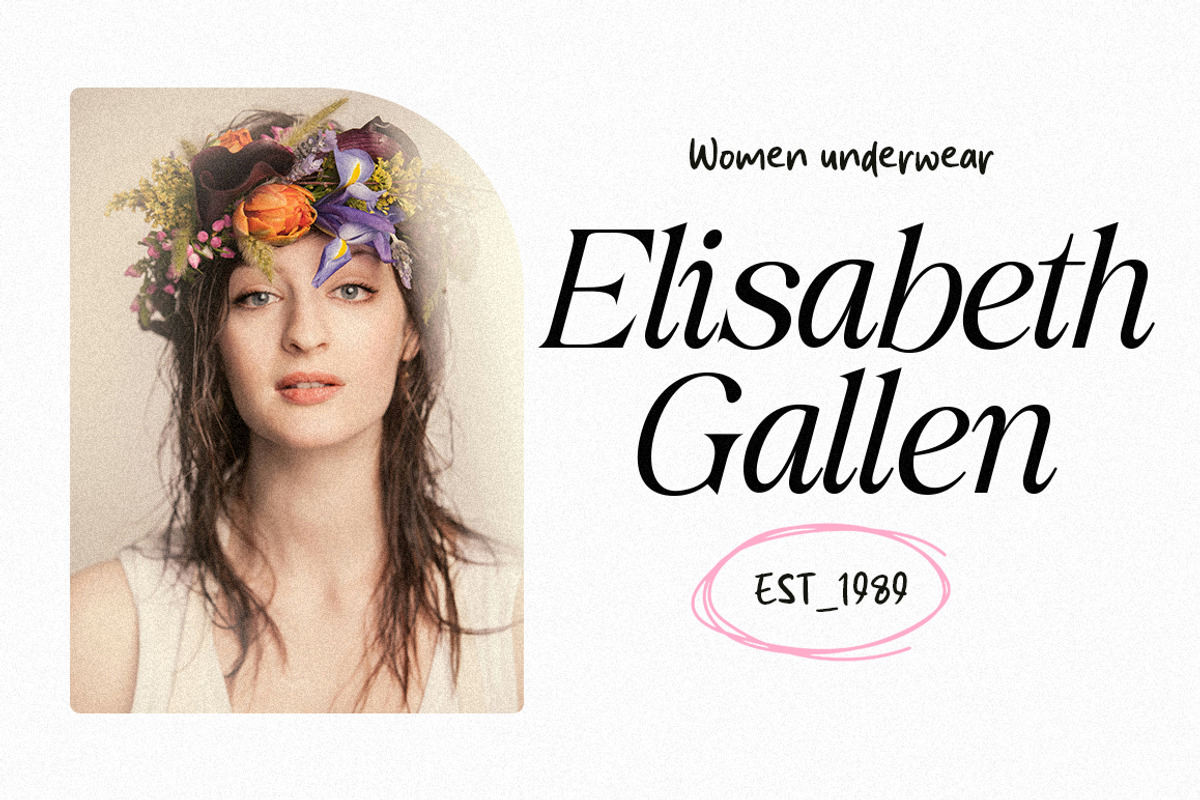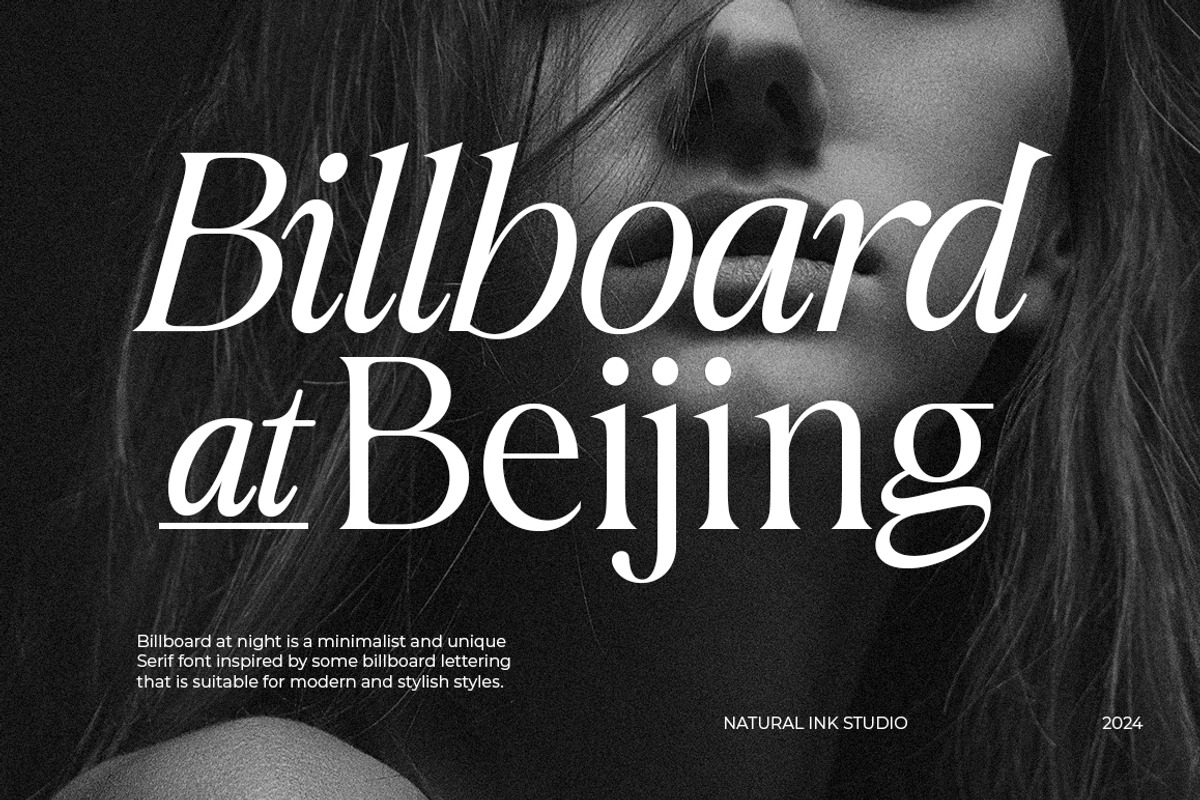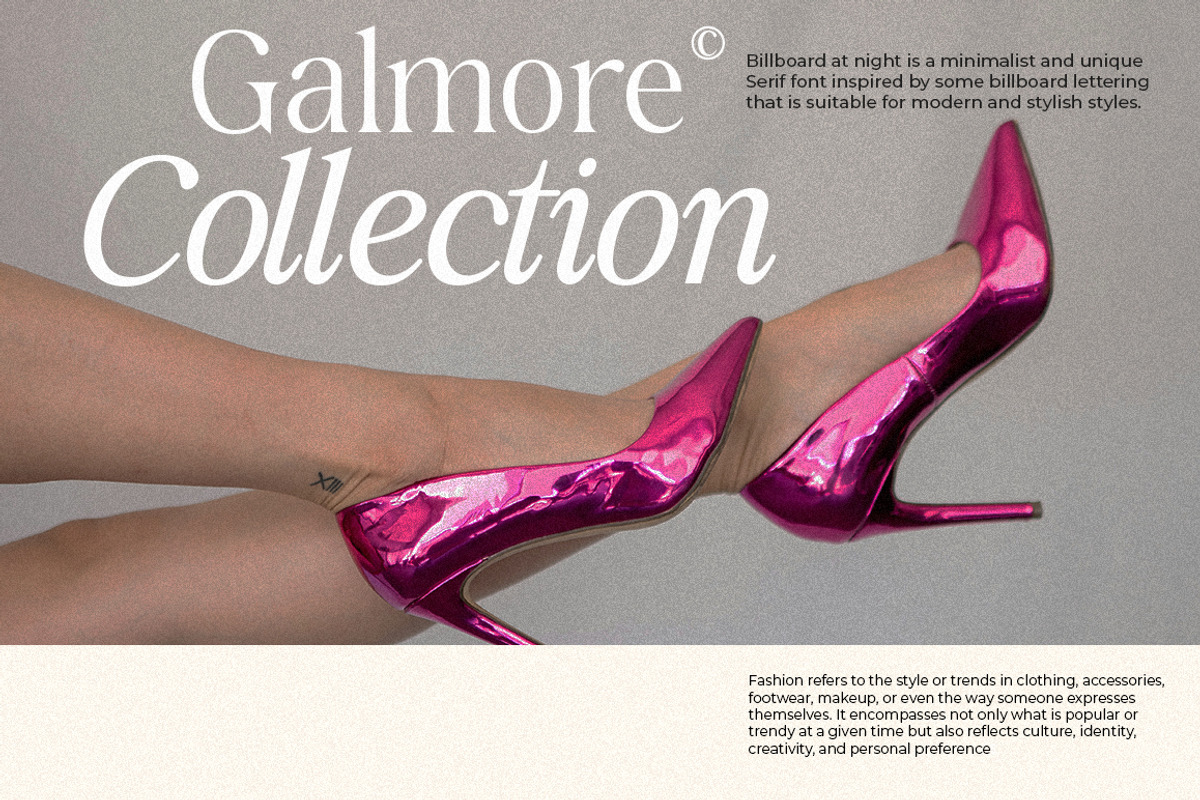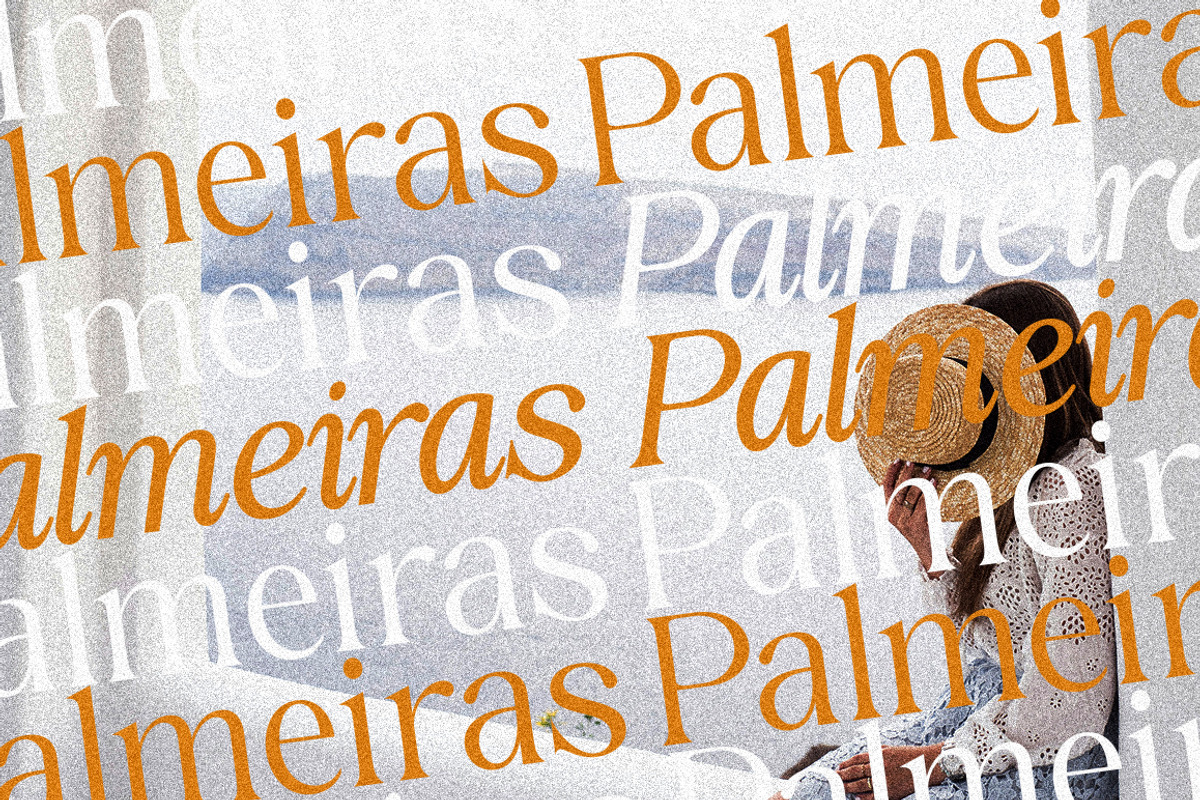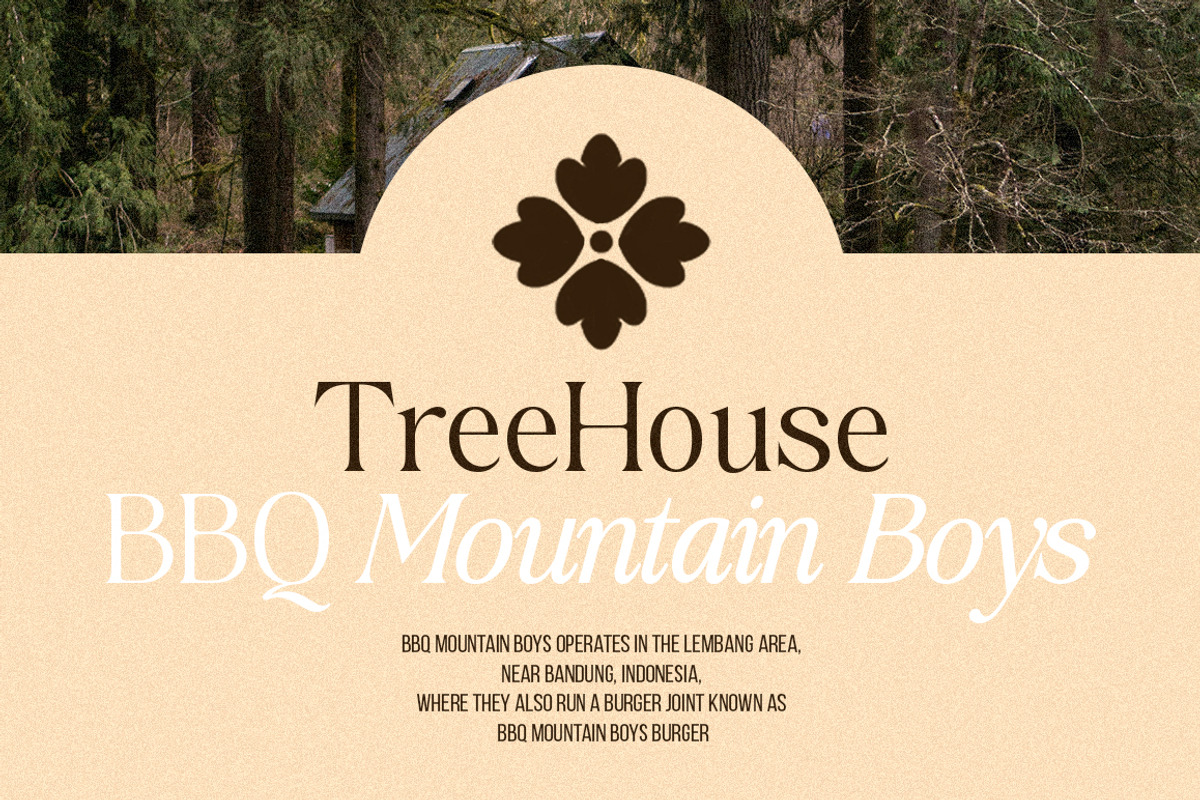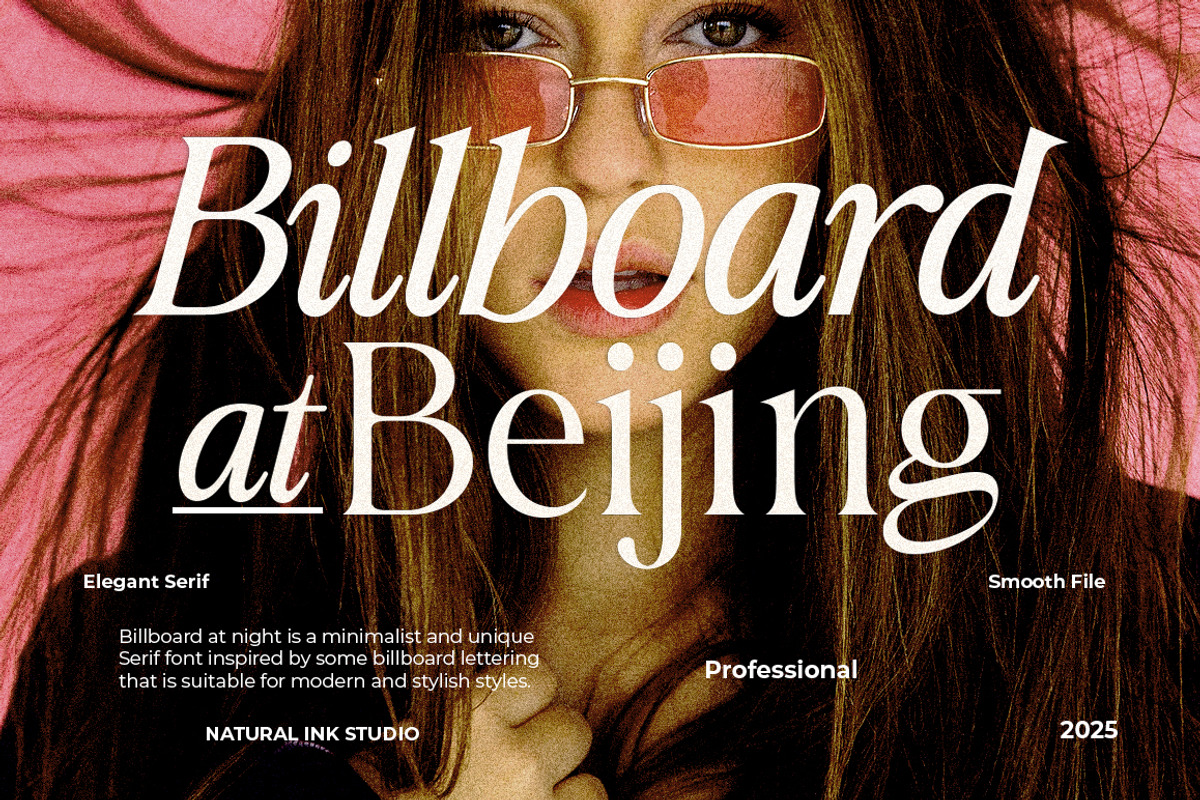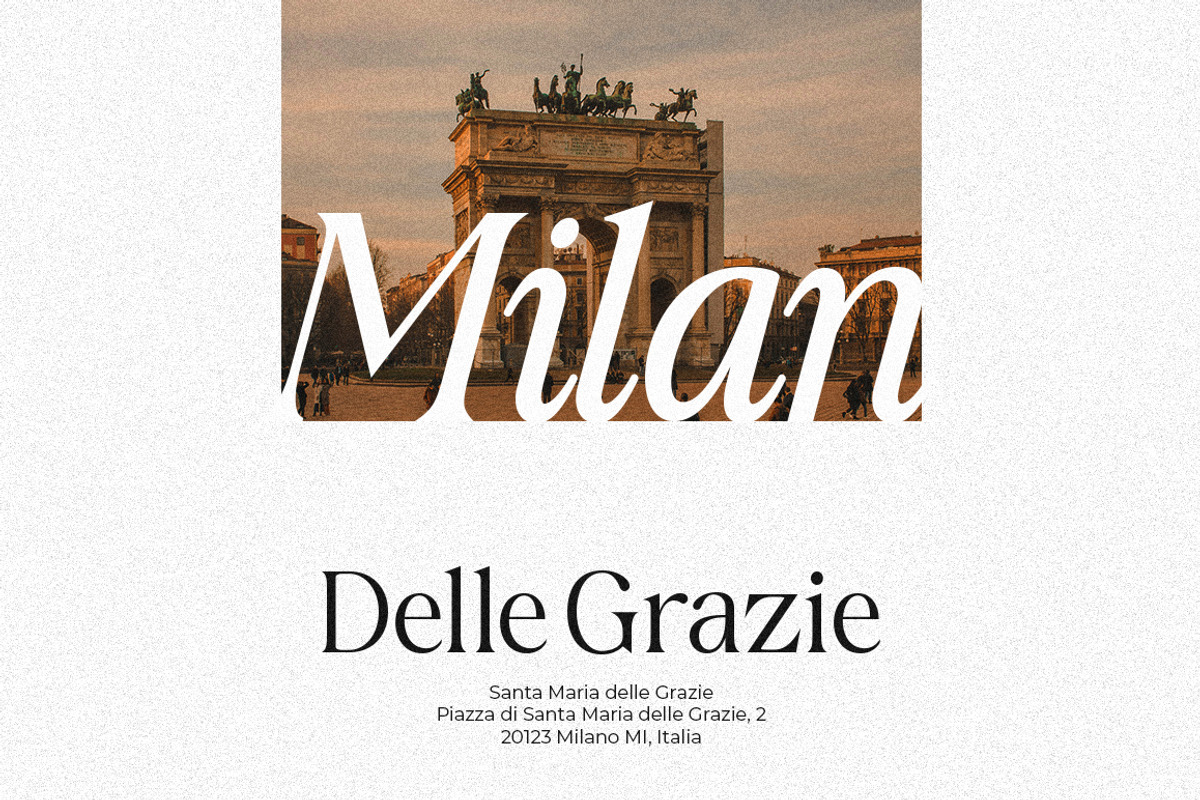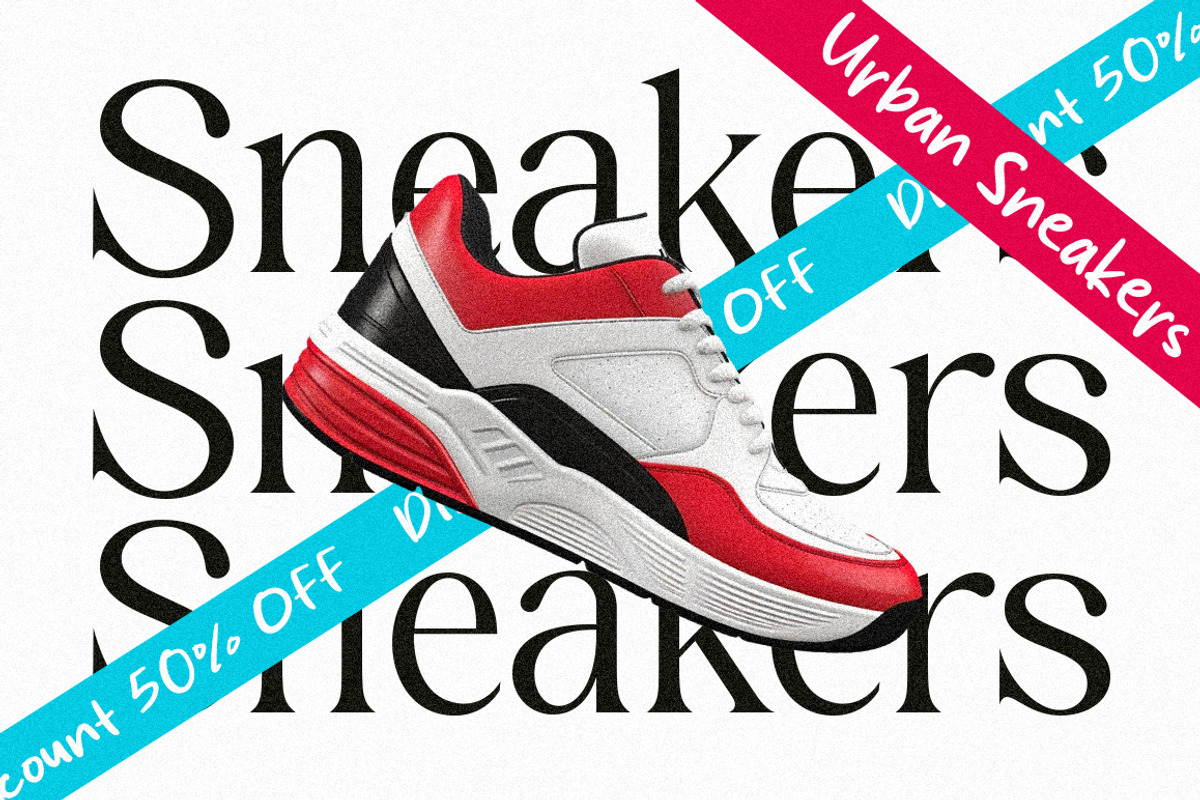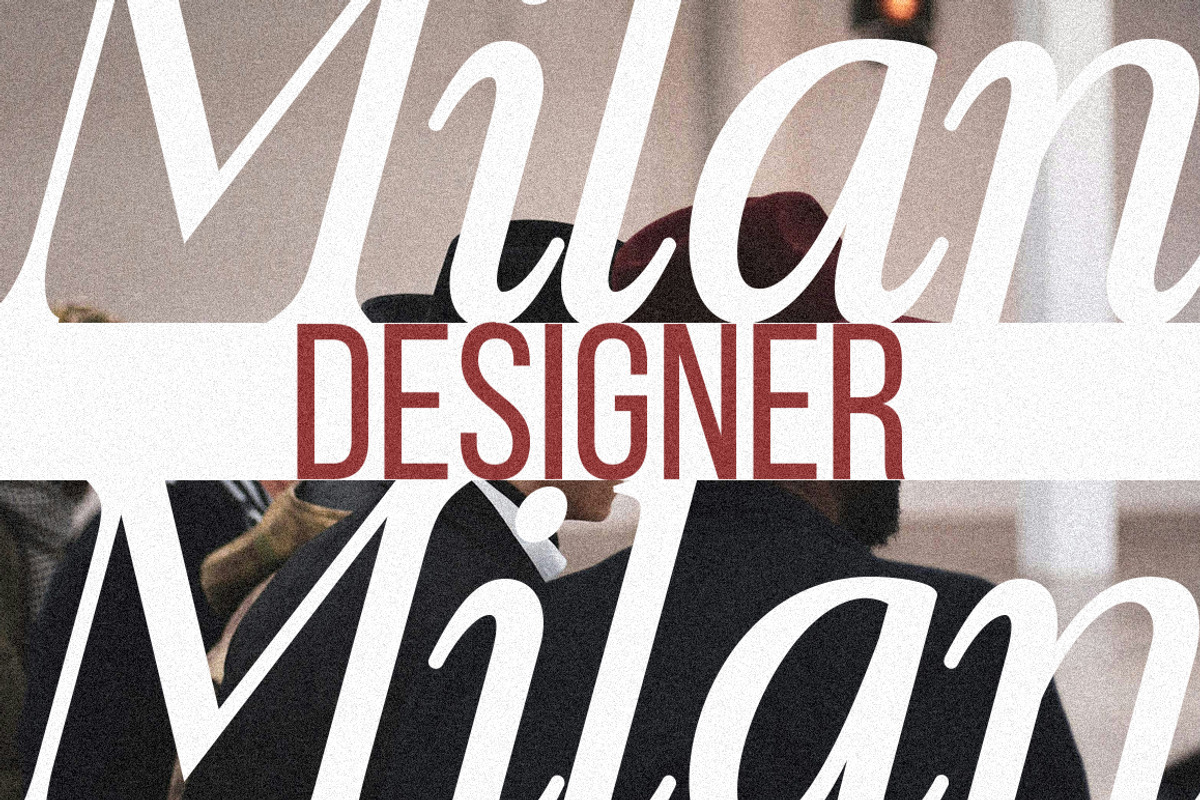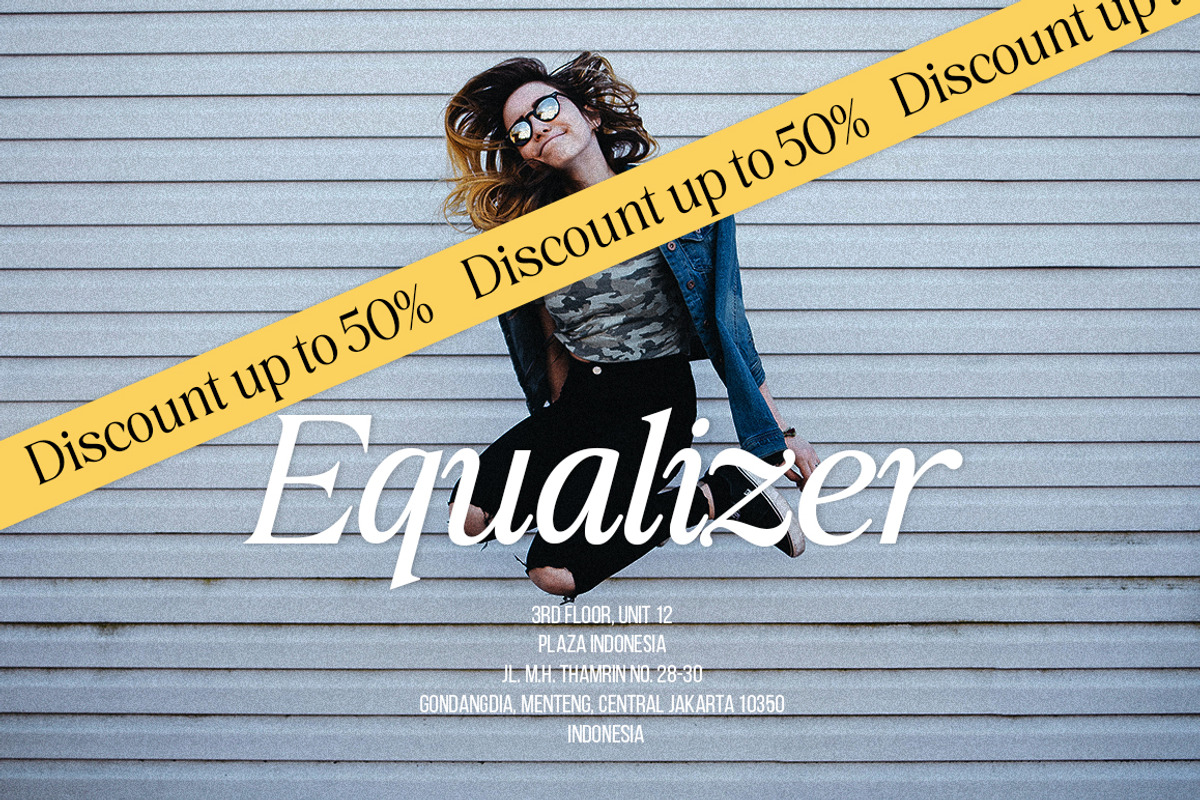
Billboard At Beijing
Billboard At Beijing is an elegant serif font with a special style that is suitable for various purposes such as banners, applications, cosmetic products, advertisements, and various other design needs. Billboard At Beijing also has 3 files, namely italic, regular, and soft and classic italic bold.